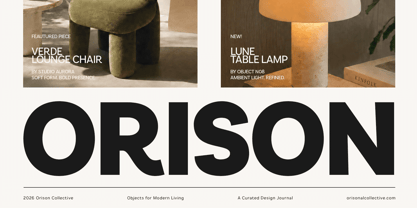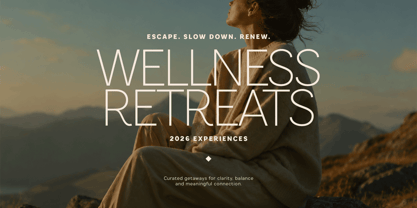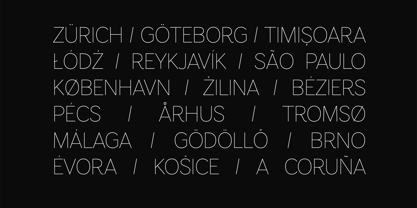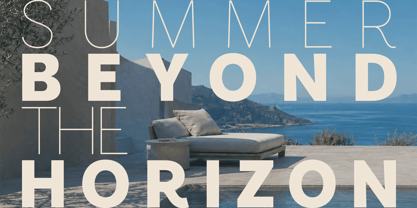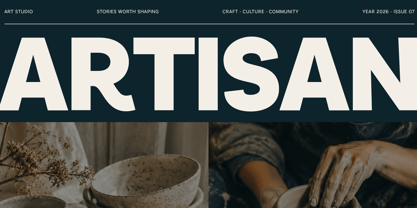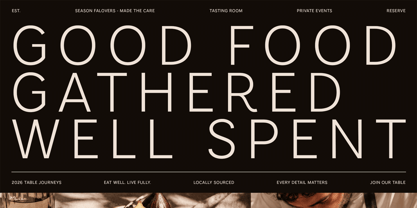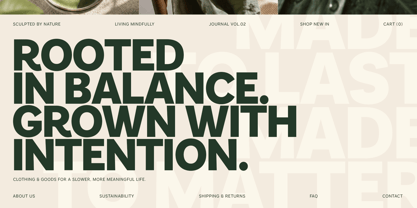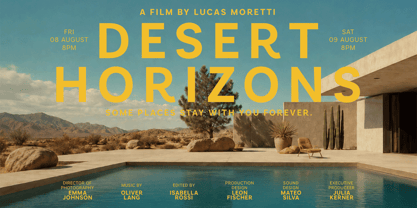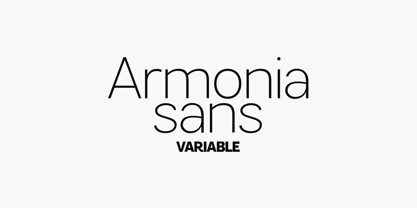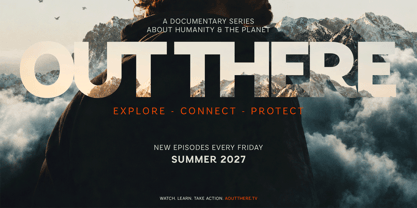
Armonia Sans VF
by VP Creative Shop
The Armonia Sans VF Font Family was designed by Vladimir Fedotov, Plamen Petrov and published by VP Creative Shop. Armonia Sans VF contains 2 styles and family package options. More about this family
Armonia Sans Variable brings the full family into a flexible variable format, offering seamless control across its weight range in a single font. From delicate, airy typography to strong, confident display settings, it delivers smooth transitions, balanced forms, and a contemporary character ideal for branding, editorial, web, packaging, and responsive design.
Designers: Vladimir Fedotov, Plamen Petrov
Foundry: VP Creative Shop